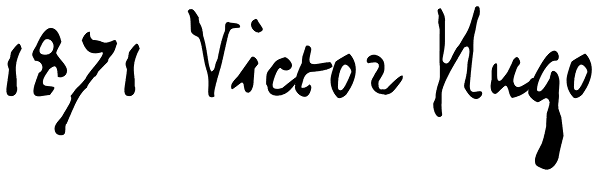
1871 Victor Hugo
The famous French poet and novelist Victor Hugo (1802-1885) used several handwriting styles, sometimes almost illegible. His manuscripts designated to be published was written using a script style, to be legible clearly. We have used script style...